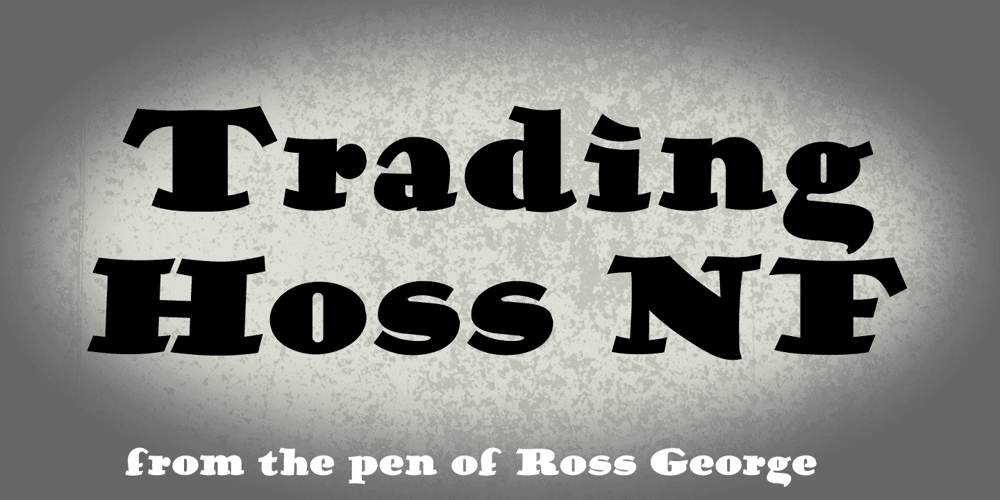
Trading Hoss NF Font Family was designed by published by Nick’s Fonts. Trading Hoss NF contains 1 styles and family package options. Speedball pen master Ross George presented this face as D-nib Display. Its wide stance and quaint attitude make for some unavoidable whimsy. Both versions of this font support the Latin 1262, Central European 1250, Turkish 1254 and Baltic 1257 codepages.